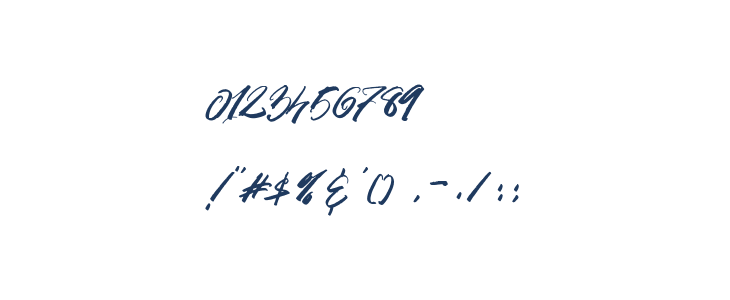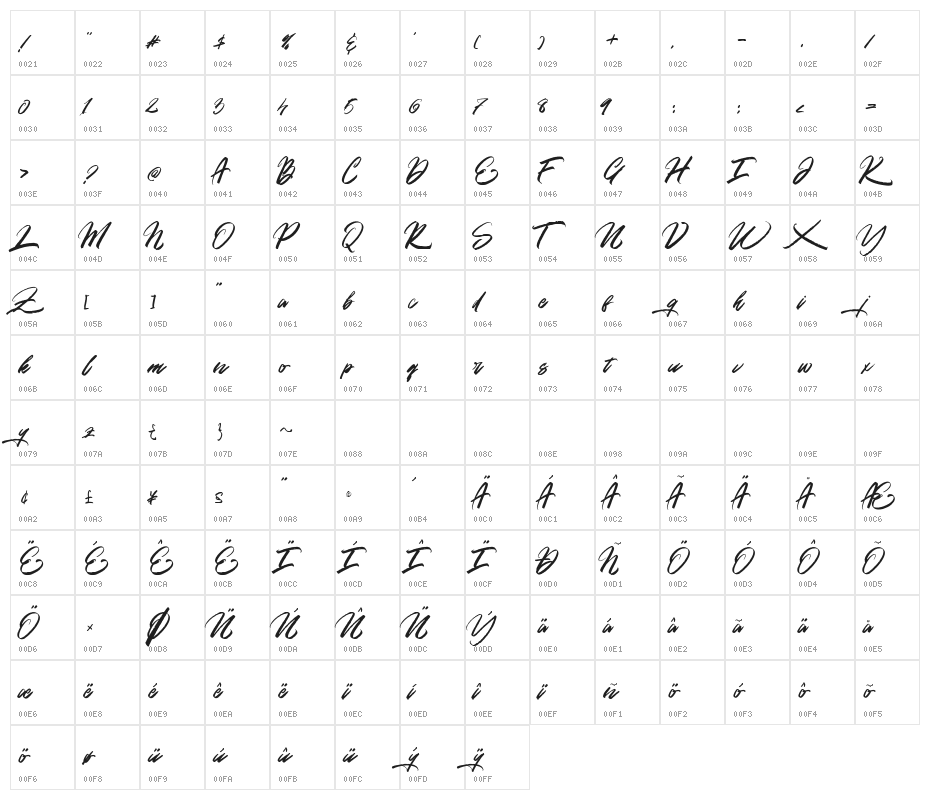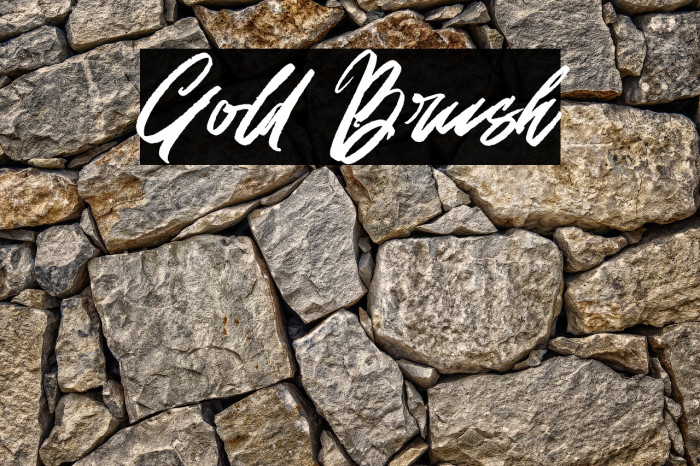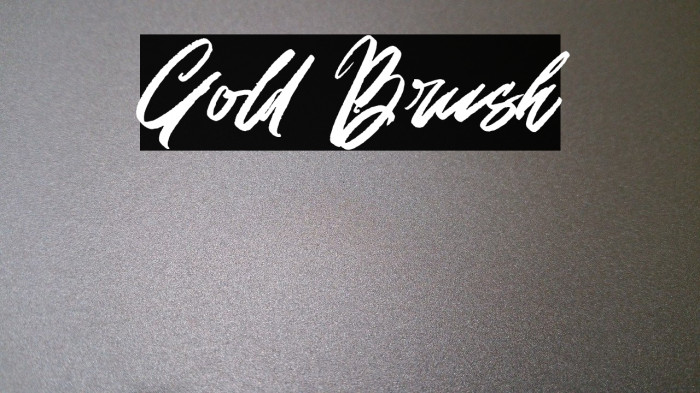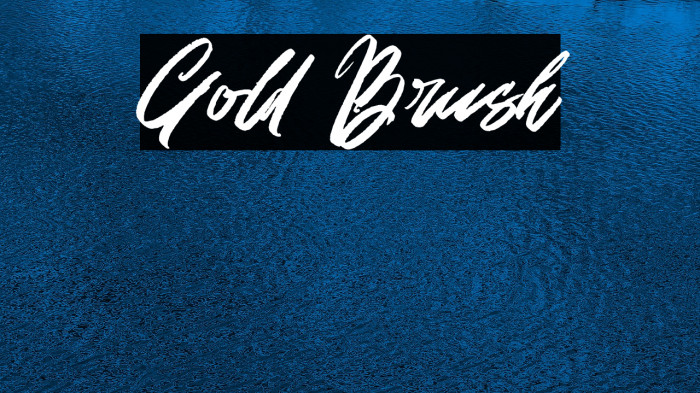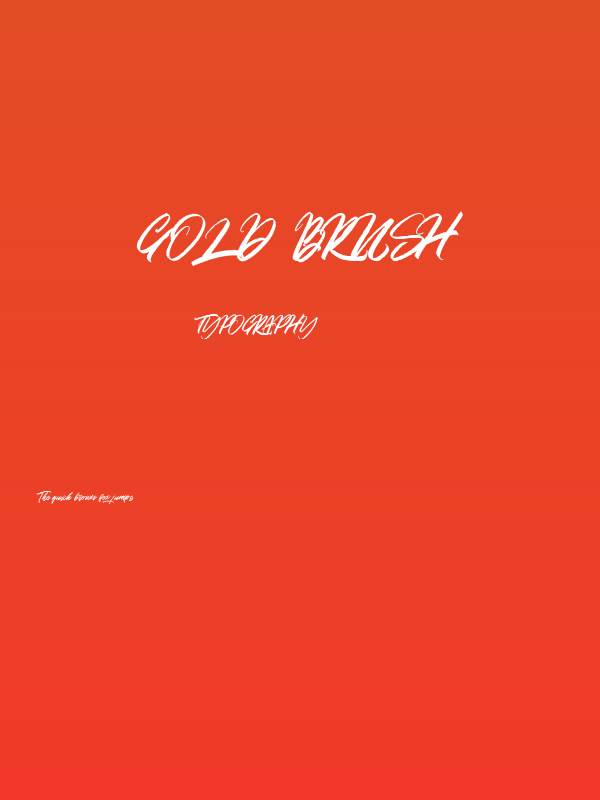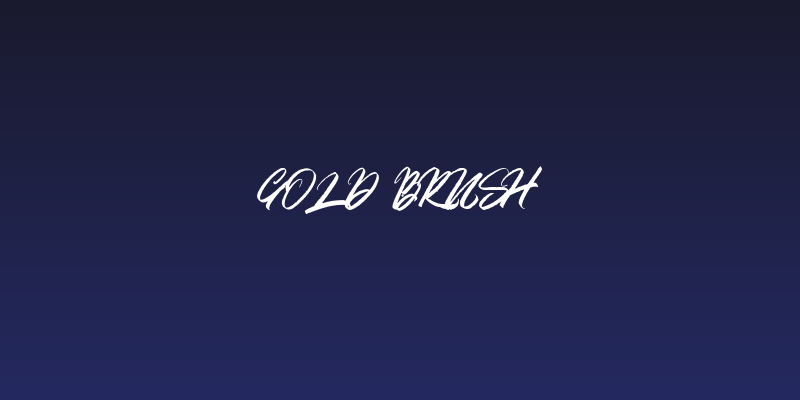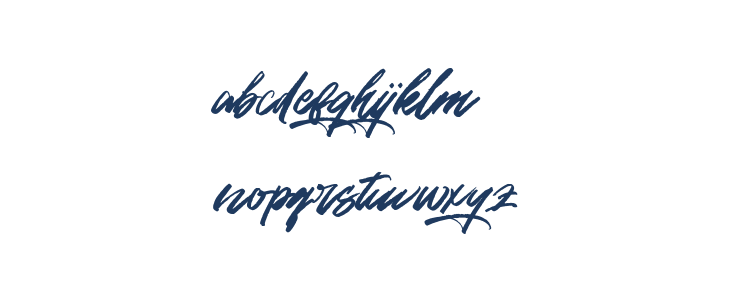
Gold Brush Font
Gold Brush Description
This font exudes a dynamic and artistic flair, characterized by its bold, sweeping brush strokes that give it a hand-painted appearance. The letters are fluid and connected, reminiscent of traditional calligraphy, yet with a modern twist. The uppercase letters are particularly striking, with exaggerated loops and curves that create a sense of movement and energy. The lowercase letters maintain this fluidity, offering a harmonious balance between elegance and expressiveness. Numbers and special characters are crafted with the same attention to detail, ensuring consistency across all elements. This font is perfect for projects that require a touch of sophistication and creativity.